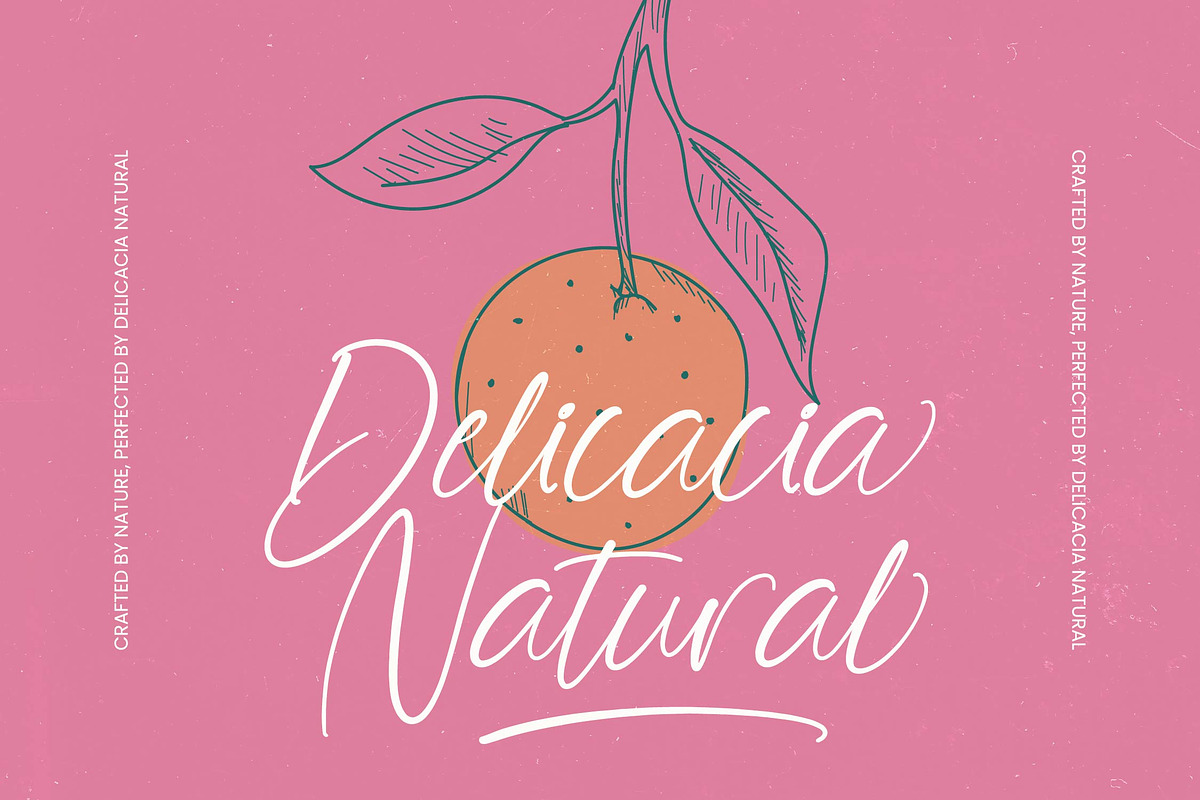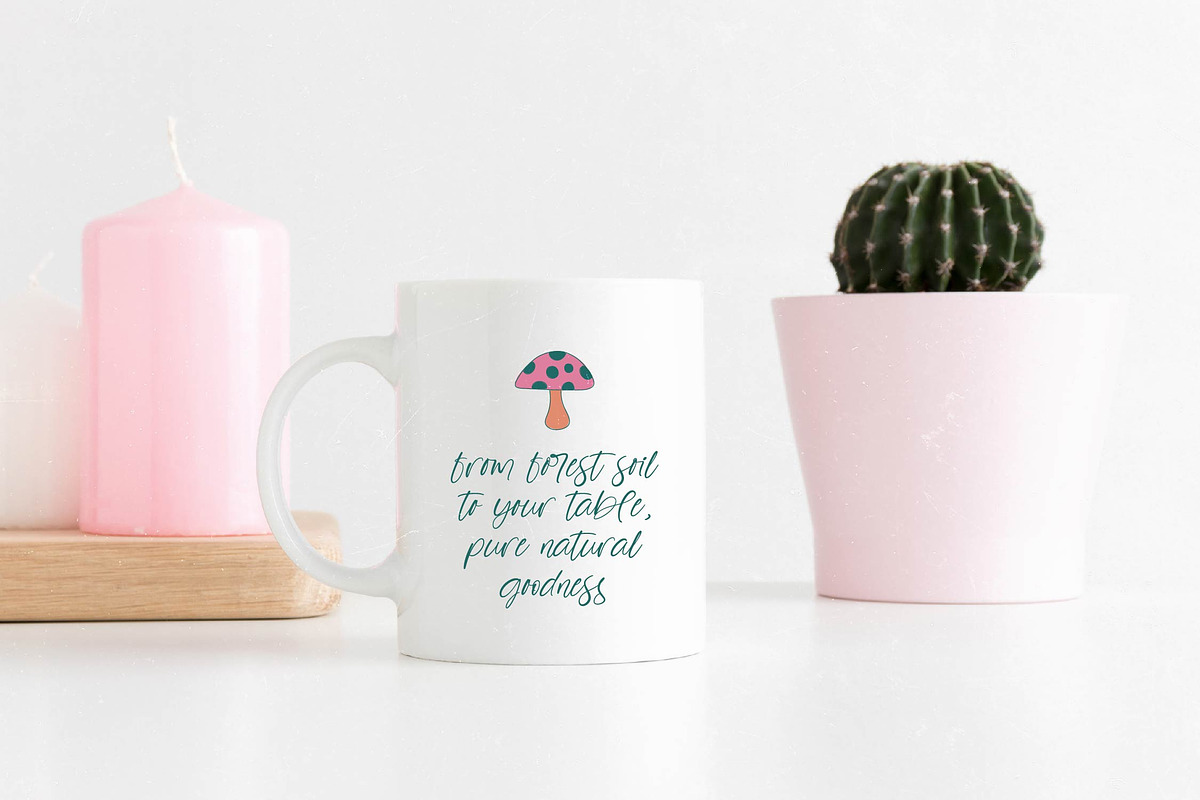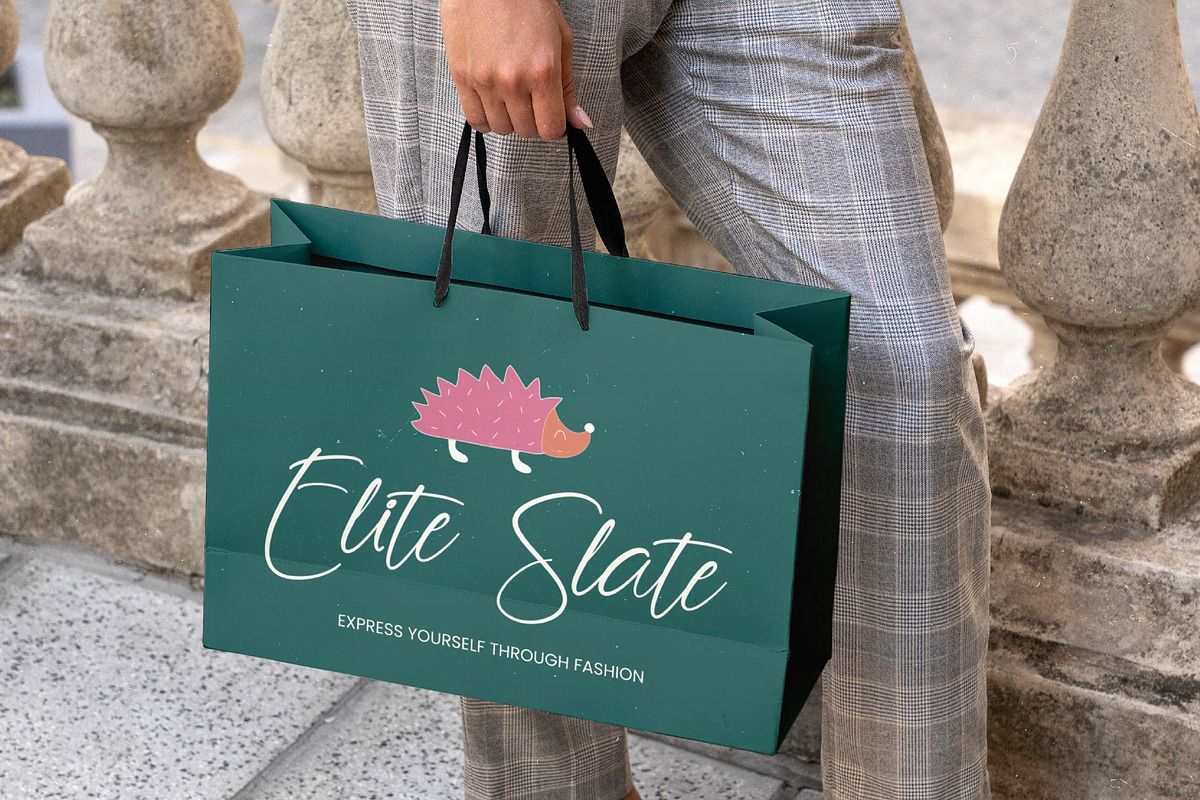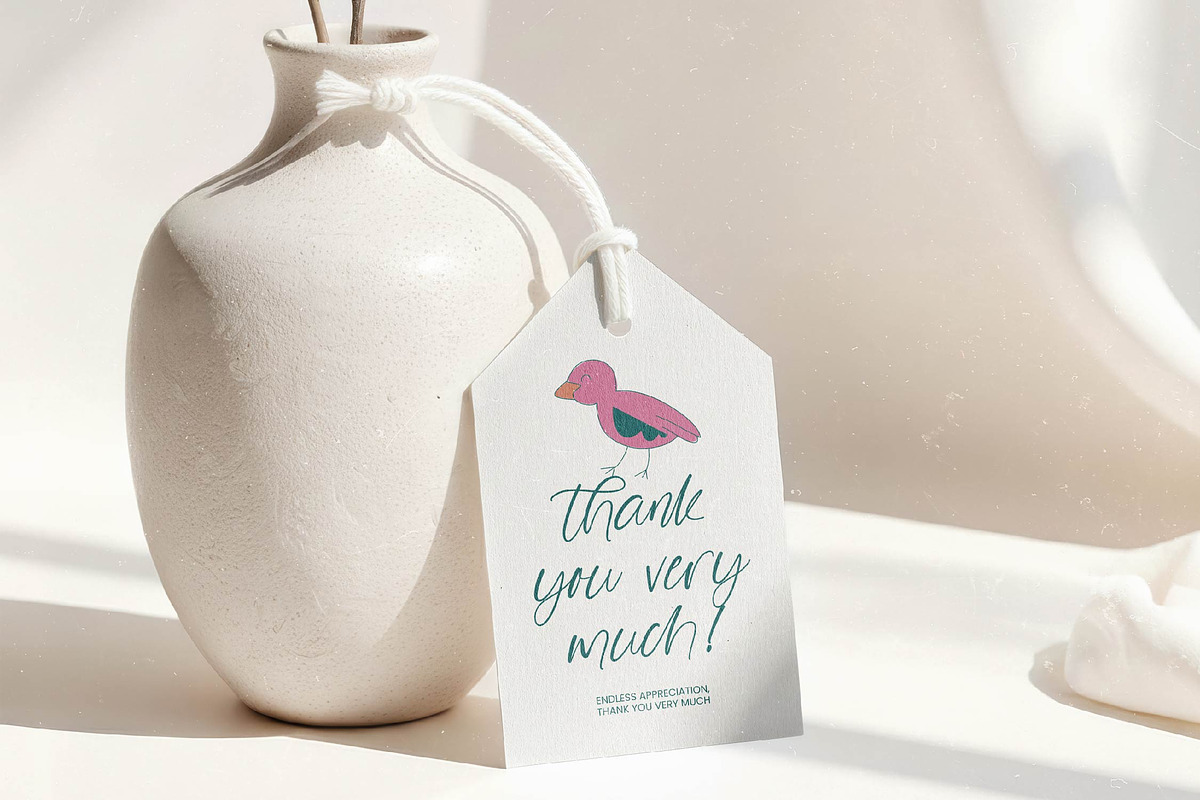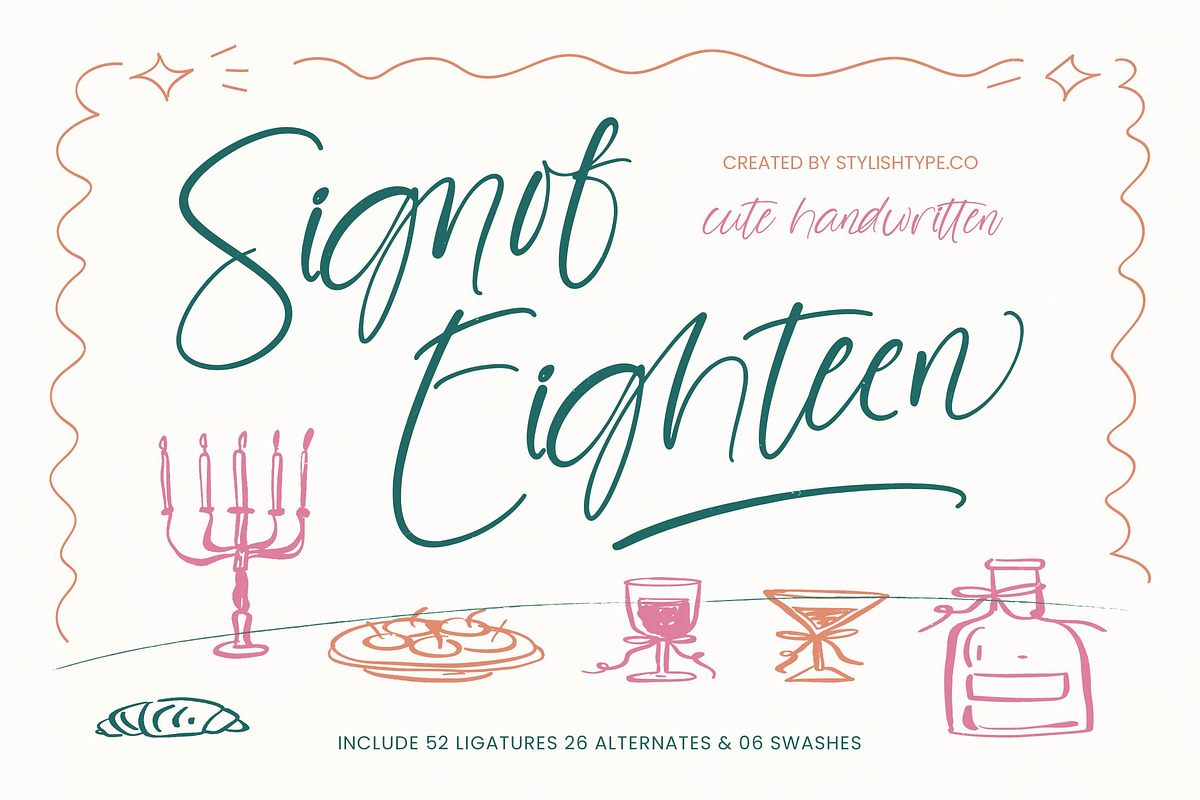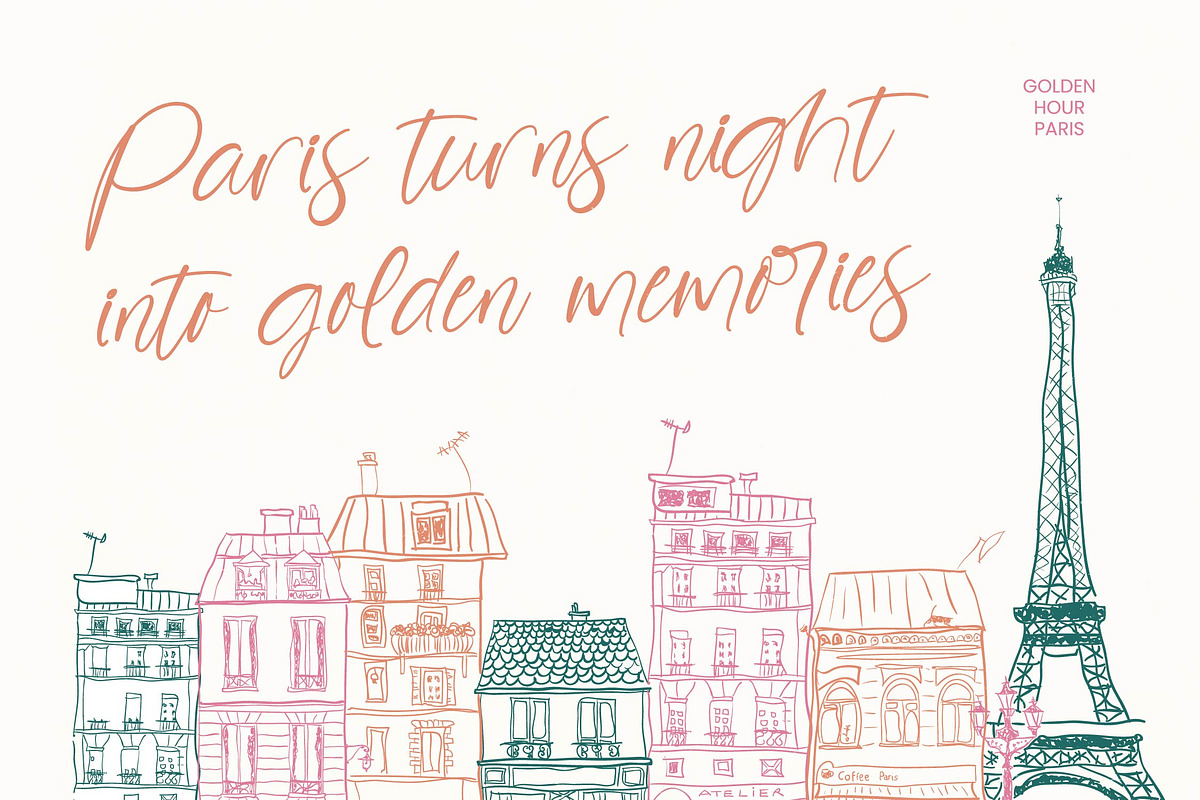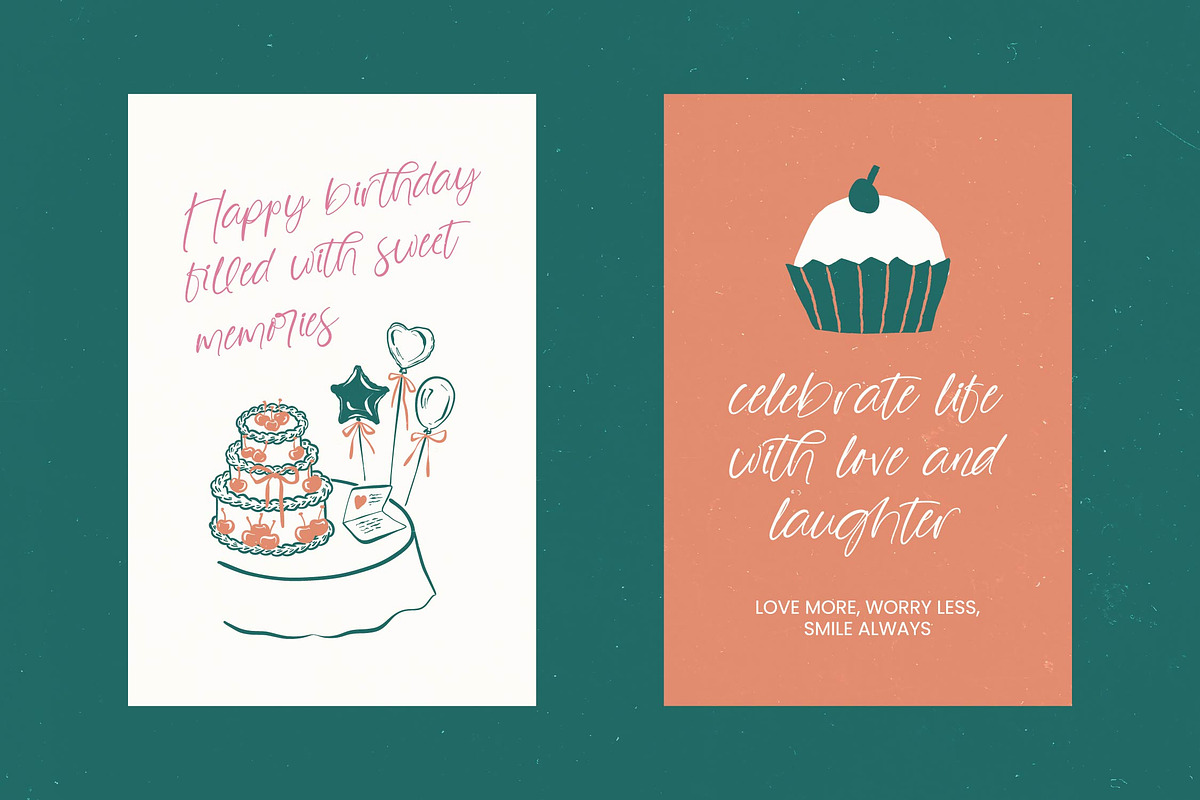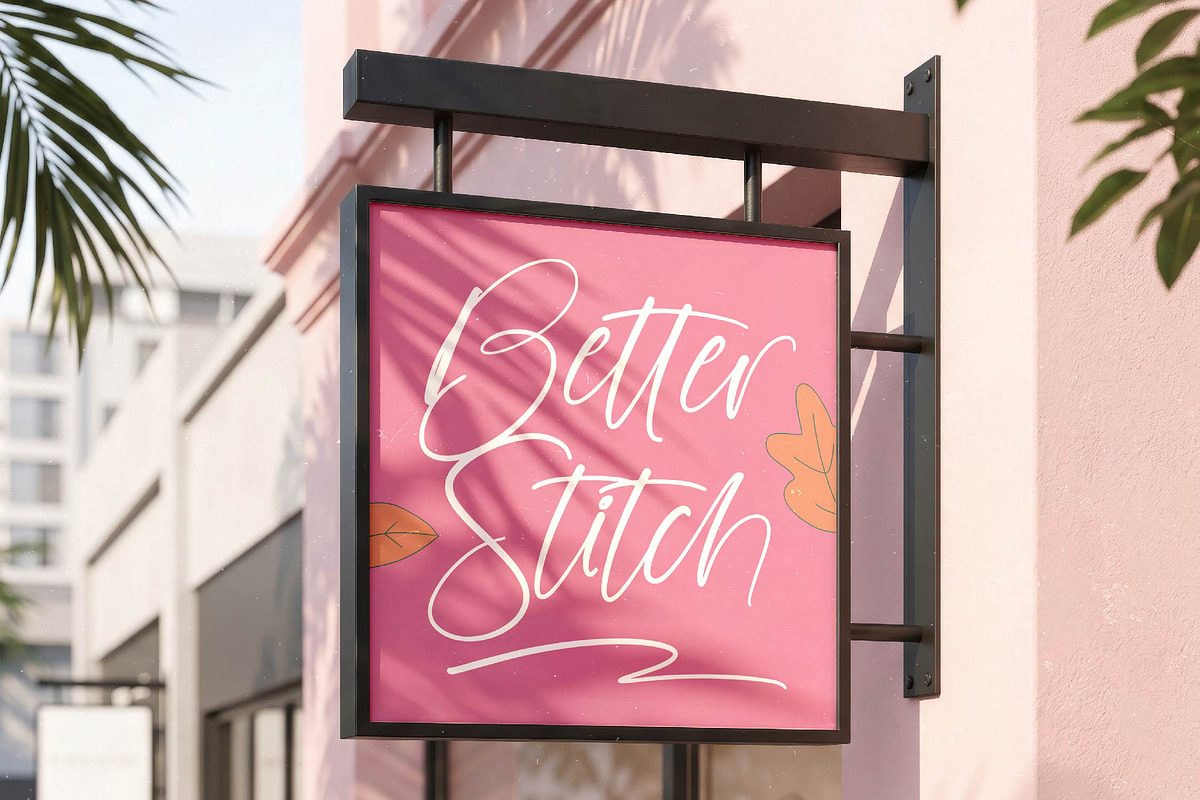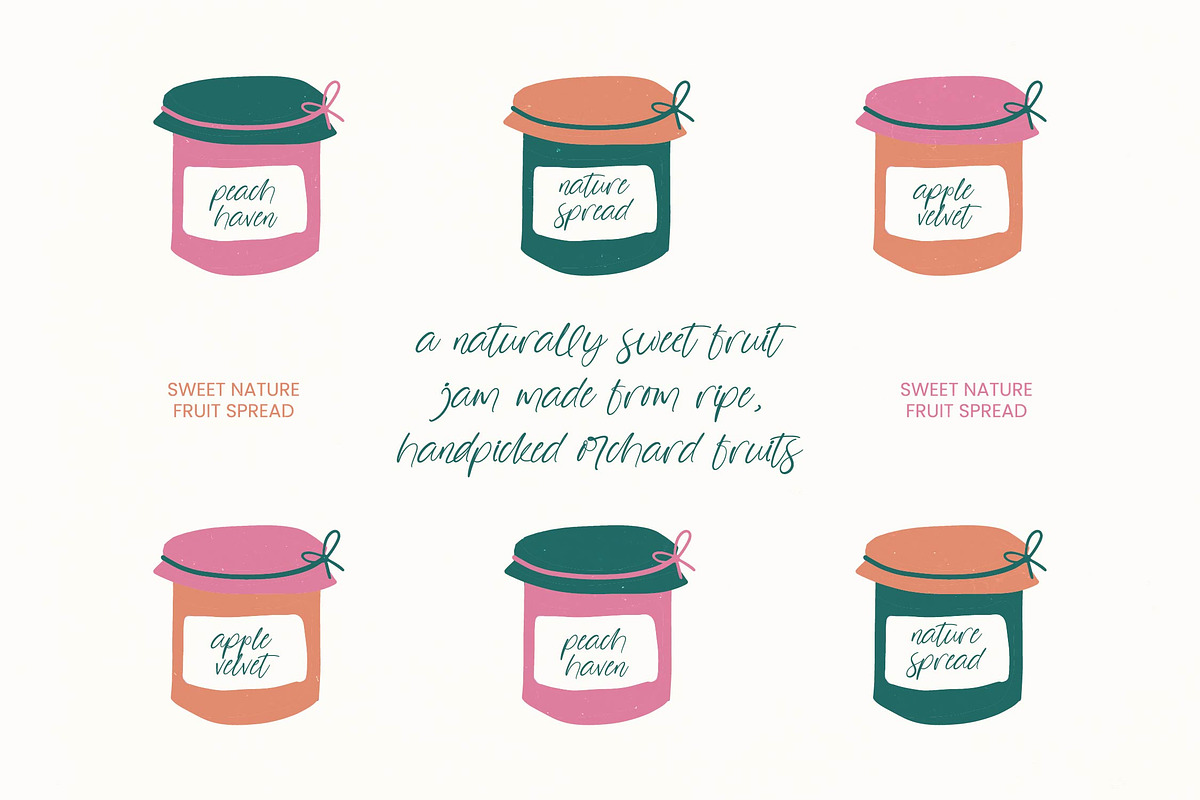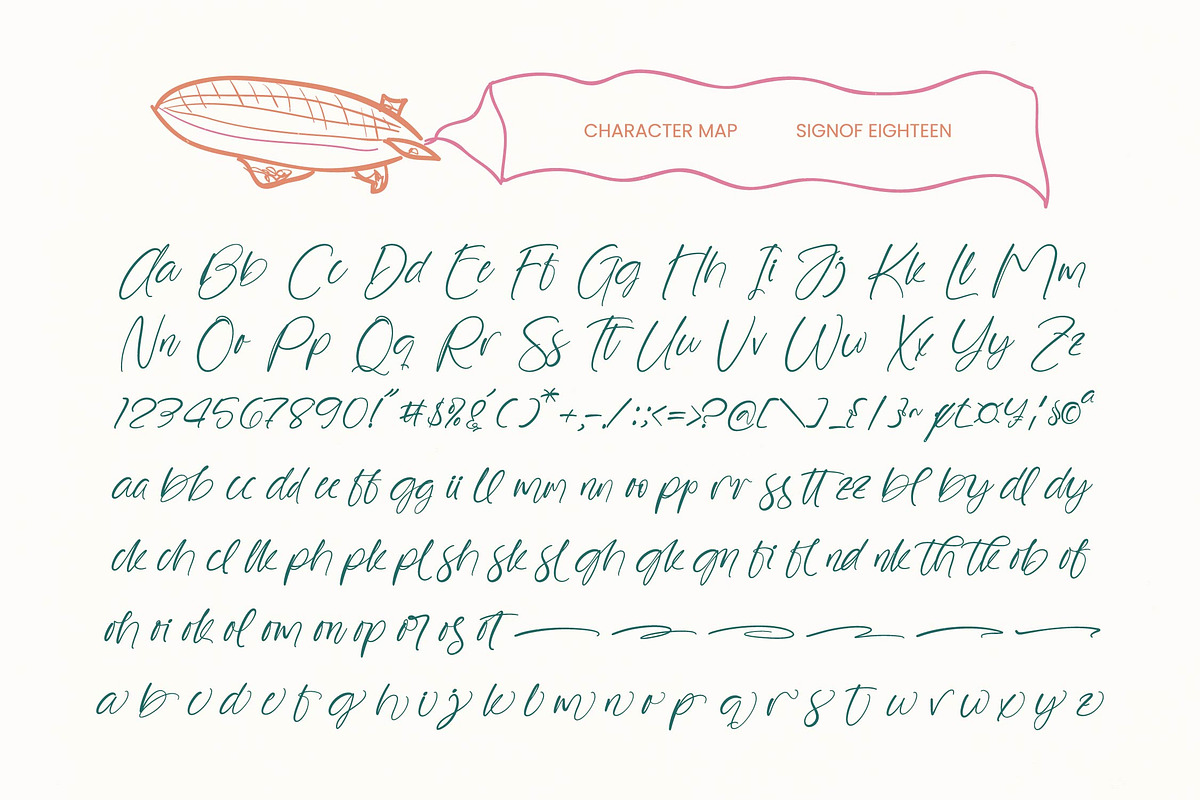
Signof Eighteen Cute Handwritten
Signof Eighteen - Cute Handwritten , Elevate your creative projects with a touch of authentic charm. Signof Eighteen - Cute Handwritten is a masterclass in organic script design, blending effortless flow with a modern, playful aesthetic. Its fluid strokes and natural letterforms evoke a sense of personal connection and warmth, making it the perfect choice for designers looking to infuse their work with hand-crafted elegance and a professional finish.
Experience unparalleled creative freedom with its robust feature set. This typeface is meticulously crafted to ensure a realistic handwriting experience, featuring an impressive array of 52 ligatures, 26 alternates, and 06 decorative swashes. These dynamic elements allow Signof Eighteen - Cute Handwritten to mimic the subtle nuances of true calligraphy, providing a bespoke visual identity that stands out in a crowded digital landscape.
Expand your brand's reach across the globe with ease. With its extensive multilingual support, Signof Eighteen - Cute Handwritten adapts seamlessly across global markets, making it incredibly versatile for international projects. This comprehensive language coverage ensures that your message remains consistent and impactful, regardless of geographic borders, solidifying Signof Eighteen - Cute Handwritten as an essential tool for cross-cultural branding and high-end communication.
Transform your vision into a stunning reality through diverse applications. Perfectly suited for boutique packaging, lifestyle branding, and editorial layouts, this font excels in creating a memorable first impression. Whether you are designing luxury wedding invitations, social media graphics, or bespoke logo designs, Signof Eighteen - Cute Handwritten offers the perfect balance of sophistication and approachability for any creative professional aiming for excellence.